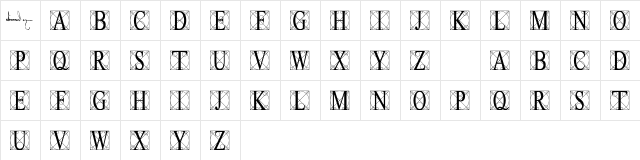
Leonardo Regular
Design Context for Leonardo Typeface
Leonardo takes a measured approach to typography — its balanced proportions and neutral character make it a reliable workhorse for both digital and print work.